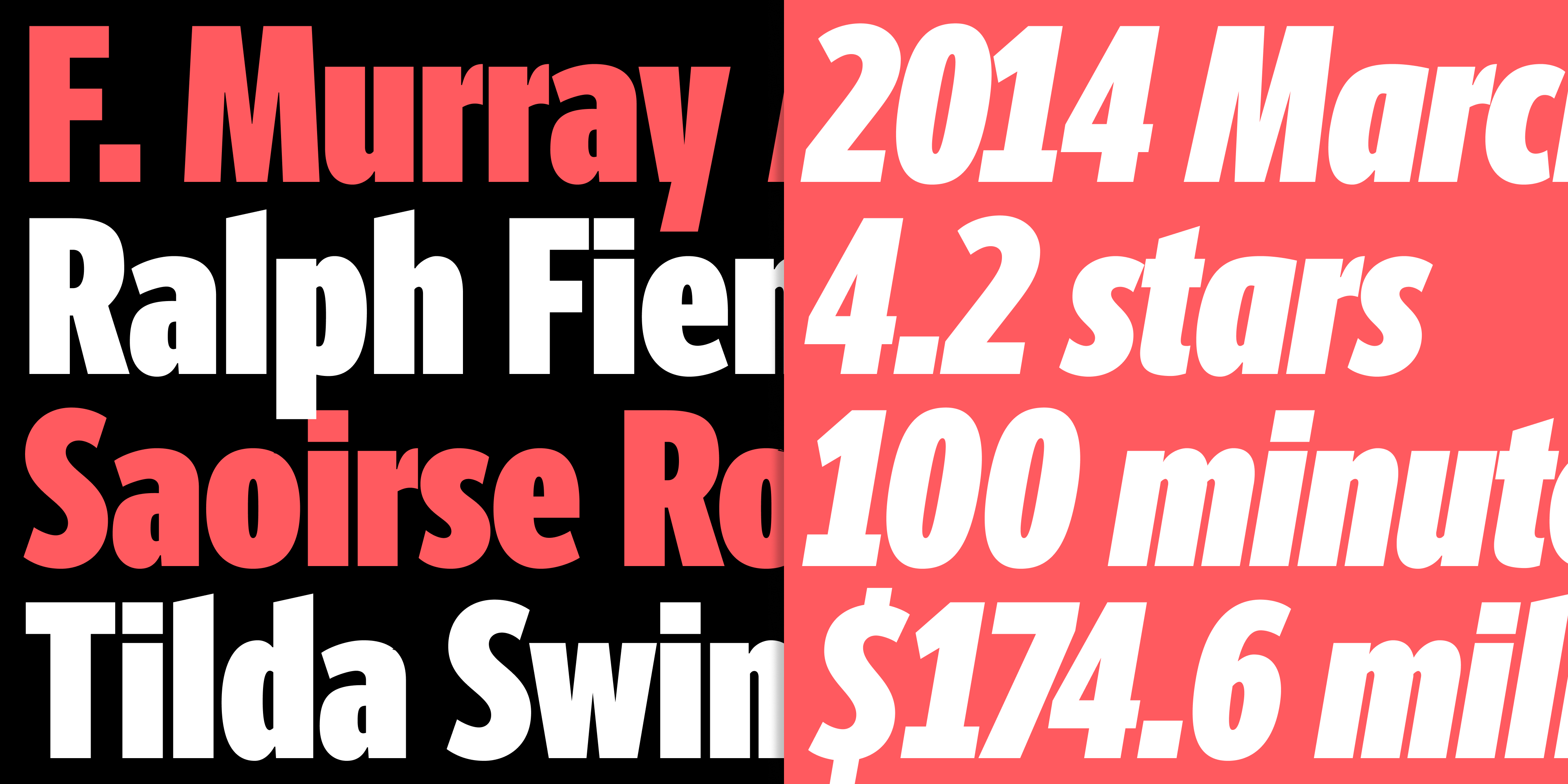
Berlingske Sans Extra Condensed is designed with a high vertical proportion and a cathedral look that gives it an elegant and confident expression. The condensed style provides a high degree of usability where space is limited and it is the perfect supplement to a regular sans when there is a need for notes and appendixes. The vertical look also functions tremendously well for larger sizes, tabloid and display
and is highly legible from a distance.